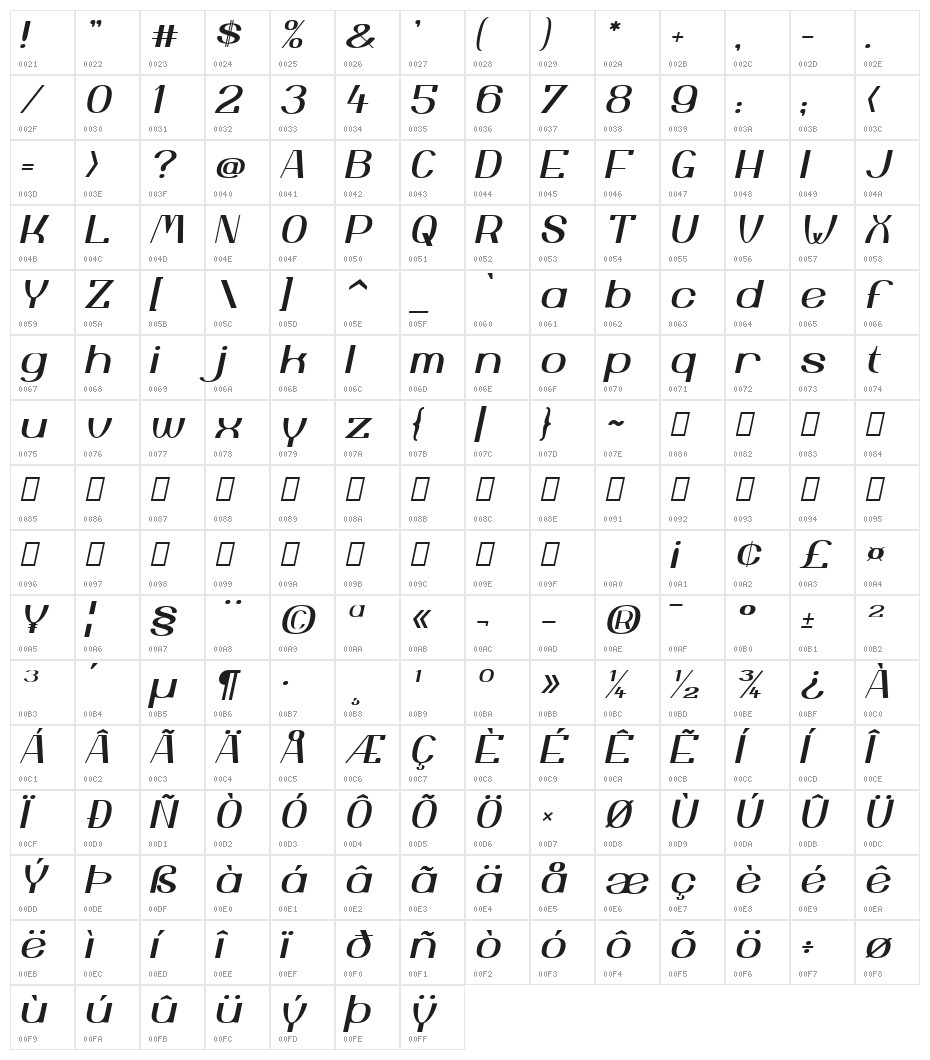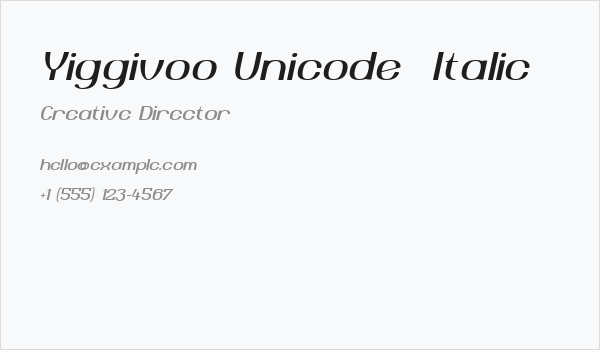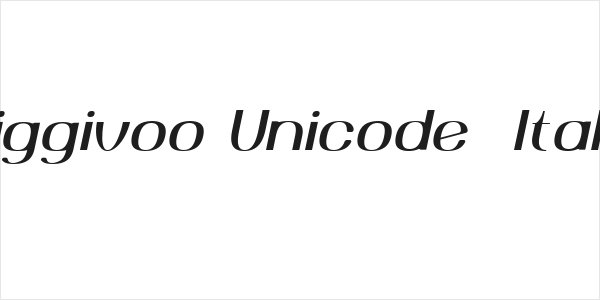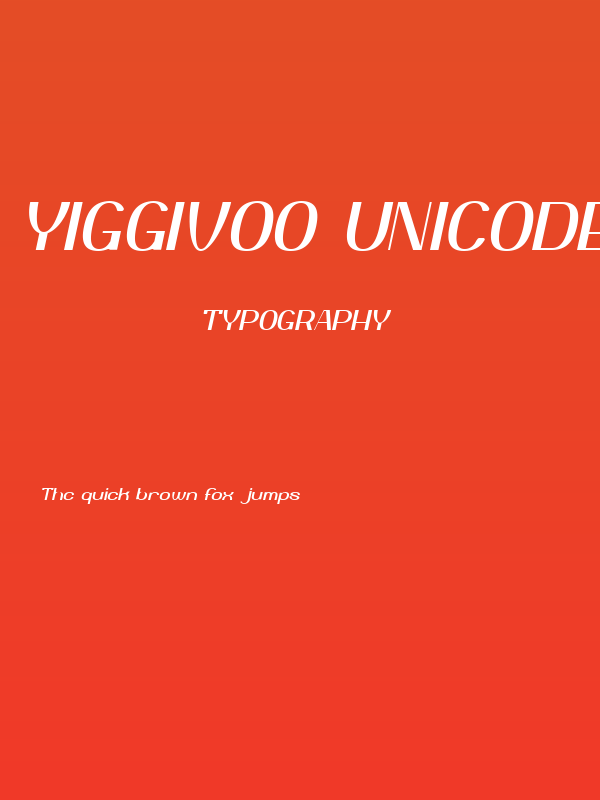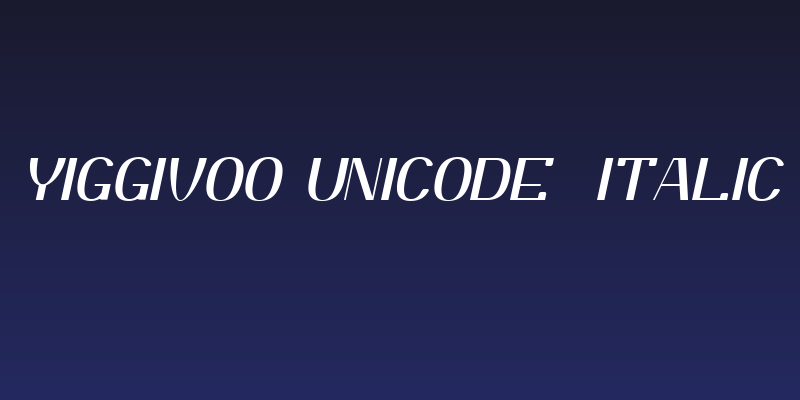
Yiggivoo Unicode Italic Font
Yiggivoo Unicode Italic Description
This font features a modern and sleek italic style with a distinctive slant that adds a dynamic and elegant touch to the text. The uppercase letters are bold and assertive, while the lowercase letters maintain a smooth and flowing appearance. The numerals are clear and well-defined, ensuring readability. Special characters are designed with a consistent style, enhancing the overall aesthetic. The font's design is versatile, making it suitable for various applications where a contemporary and stylish look is desired.
Use CaseHeadlines, Logos, Branding
Proposed ProjectsIdeal for branding, advertising, fashion magazines, and modern web design projects.